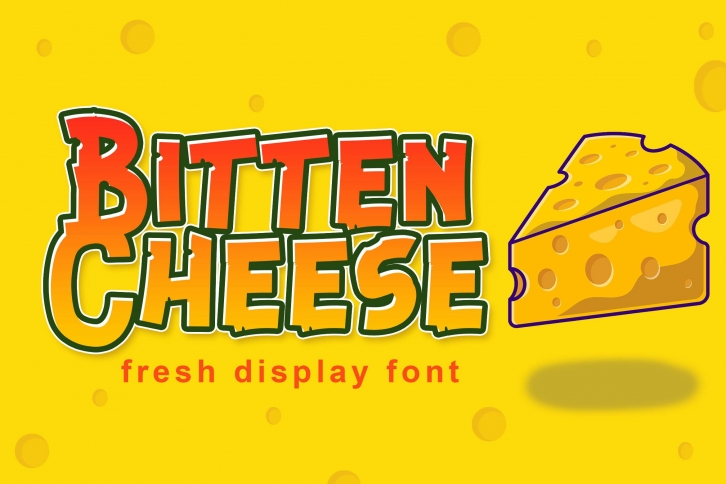
Bitten Cheese Advertisement is a trendy and unique font with an authentic style. It was designed by Fontherapy and it's a great choice for creative people who need such a font. It was released on August 10, 2021 and the file size is 4.90 MB. Bitten Cheese Advertisement will add an organic vibe to any design idea!